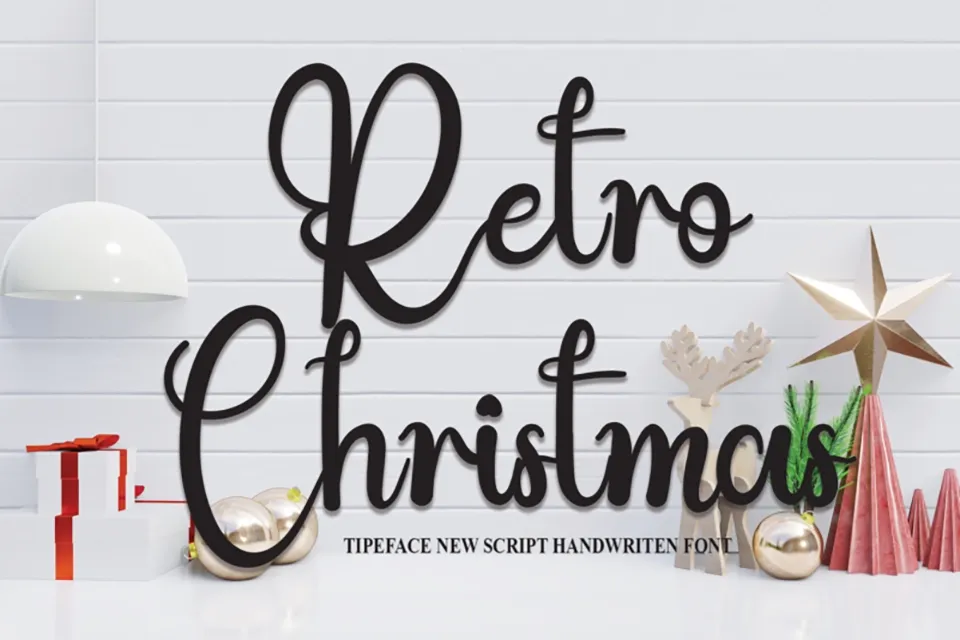
Retro Christmas Font
Retro Christmas Font is a festive script typeface with a handwritten, retro-inspired style, perfect for holiday-themed designs. Its playful curves and elegant swashes evoke a nostalgic Christmas spirit, making it ideal for greeting cards, banners, invitations, and seasonal branding. Add a touch of vintage charm to your creative projects with this delightful font.